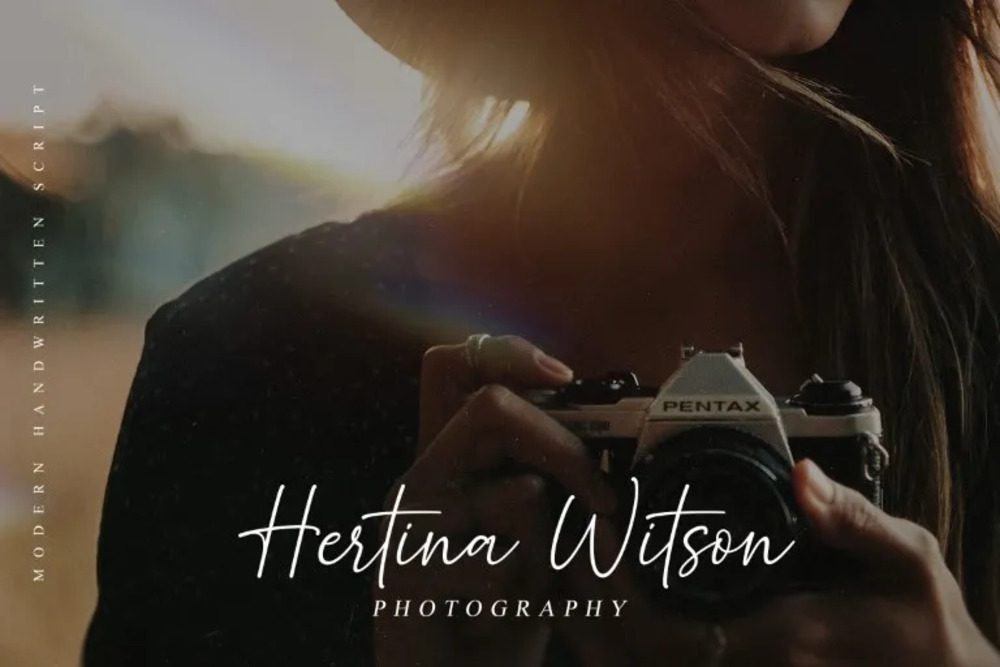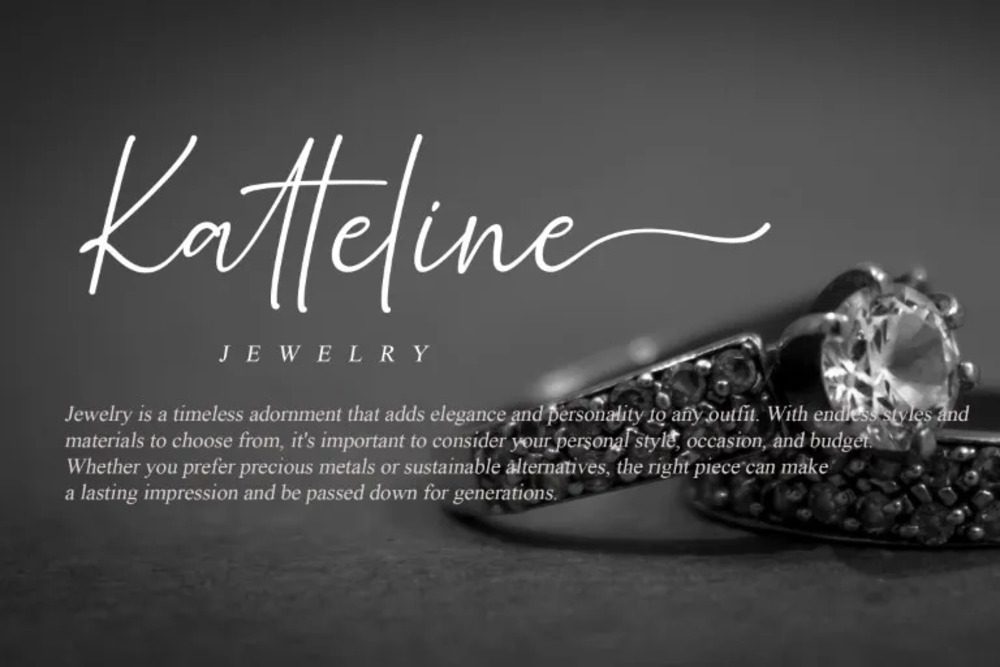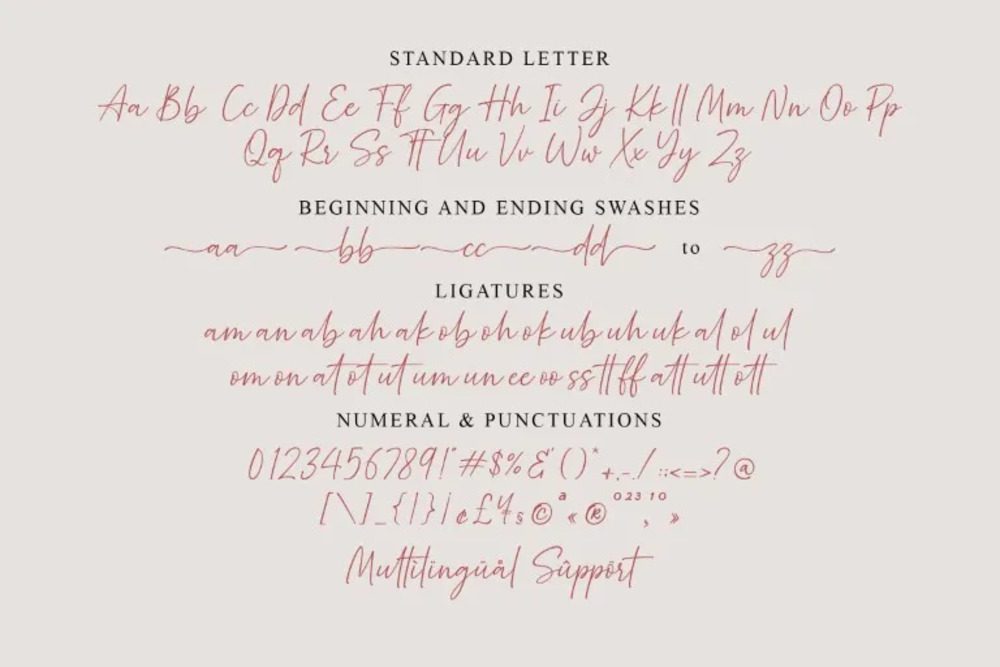
La Molestin Font
La Molestin is a bold and expressive serif font with a striking, modern edge. Its unique letterforms blend elegance and rebellious charm, making it perfect for fashion editorials, luxury branding, and statement headlines. With high contrast strokes and artistic details, La Molestin commands attention and exudes confidence. This font adds personality and sophistication to any design it enhances.